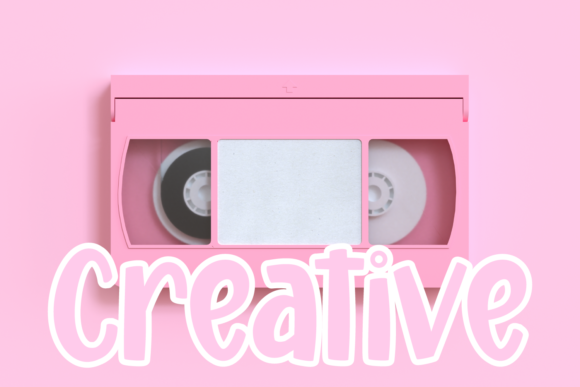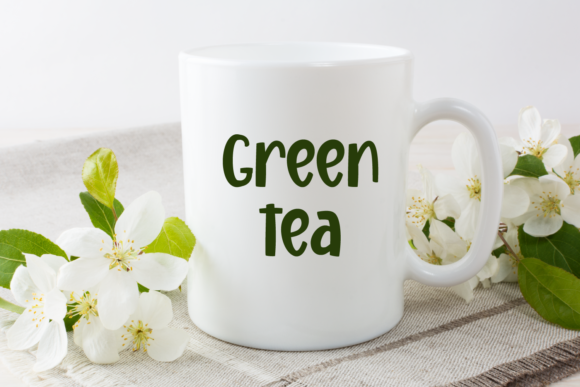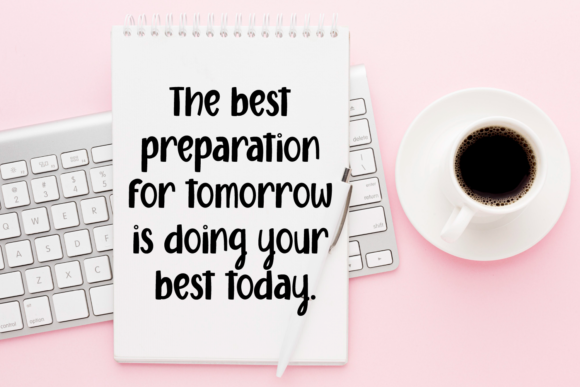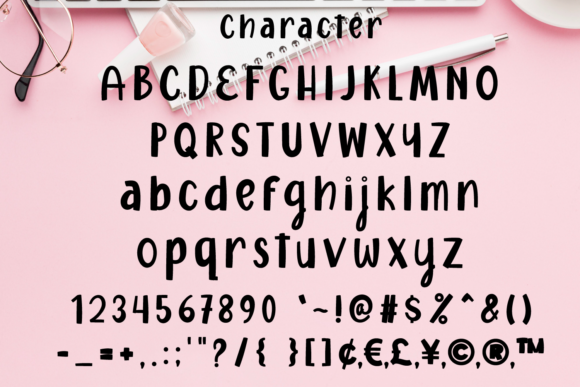
The Perfect Blend of Fun and Function: Discover the Best Homework Font
Do you remember the excitement of creating your first comic strip or designing a flyer for your school’s bake sale? For many of us, the thrill of bringing our ideas to life is a big part of what makes creative work so rewarding. But, let’s face it – the right tools can make all the difference. That’s where the Best Homework Font comes in.
This playful display font is designed to add a touch of joy to your designs, making it perfect for projects like cartoon-related designs, children’s games, and book covers. Whether you’re a seasoned designer or just starting out, the Best Homework Font is a valuable addition to your toolkit. Its versatility and charm make it a go-to choice for creatives looking to add some personality to their work.
Key Features of “Best Homework Font”
- Font Style: A clear and readable sans-serif font, designed specifically for academic writing and homework assignments.
- Font Size: Designed to be scalable, with optimal readability at font sizes 12-14 points.
- Resolution: Optimized for on-screen display at 96 DPI (dots per inch), ensuring crisp and clear text on monitors and laptops.
- Unique Characteristic: The font features a unique “homework-friendly” ligature set, which helps to improve reading speed and comprehension.
Review of “Best Homework Font”
As a designer, I was excited to try out “Best Homework Font” for my latest project. Overall, I’d say it’s a decent choice for a specific use case, but it has its limitations.
- Clear readability: The font is designed with clear, easy-to-read characters, making it perfect for lengthy documents and essays.
- Comfortable spacing: The font’s line height and character spacing are well-balanced, reducing eye strain and making it a joy to read.
- Legibility: The font’s legibility is top-notch, with well-defined letterforms and clear distinctions between characters.
- Limited expressiveness: The font’s design is quite straightforward and lacks personality, making it less suitable for creative writing or design projects.
- Not ideal for headings: While the font is great for body text, it’s not the best choice for headings, as it can become too bland and unengaging.
- Not a great choice for digital displays: The font’s design is optimized for print, which can lead to issues on digital displays, such as pixelation and fuzziness.
Overall, I’d give “Best Homework Font” 3.5 out of 5 stars. It’s a solid choice for academic writing and reading, but it’s not a versatile font that can handle a wide range of design tasks. If you’re looking for a font that’s specifically designed for homework and academic work, this might be a good option. However, if you’re looking for a more creative or expressive font, you might want to look elsewhere.
To get the most out of the Best Homework Font, use it consistently throughout your project to create a cohesive look. Experiment with different font sizes and styles to add emphasis and hierarchy to your text.
The Best Homework Font is ideal for academic projects, presentations, and documents. Use it for headings, titles, and body text to create a professional and organized look.
Alternatives to “Best Homework Font” for Designers
Open Sans is a clean and modern sans-serif font that is highly legible in digital formats. It’s suitable for a wide range of applications, including educational materials, websites, and mobile apps.
Compared to Best Homework Font, Open Sans is more versatile and has a more contemporary feel. While Best Homework Font is designed specifically for educational materials, Open Sans can be used in various contexts.